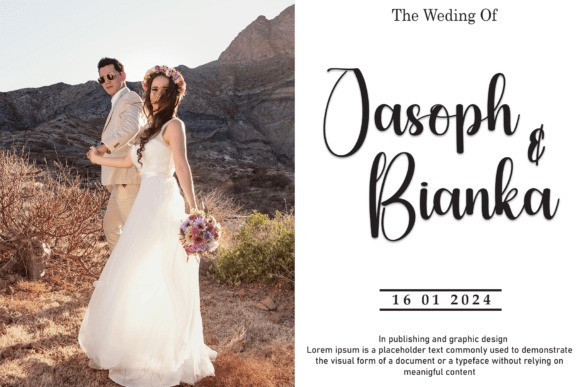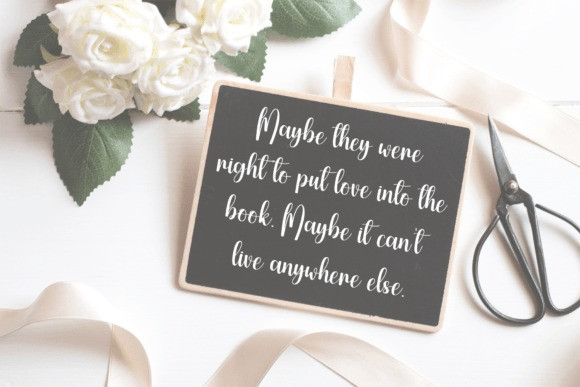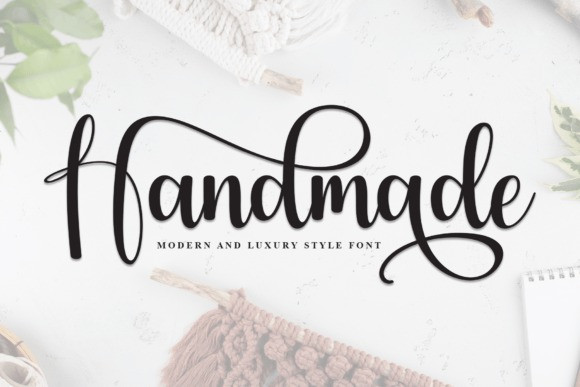
Handmade Handwritten Type
Handmade Handwritten Type is a fresh, stylish handwritten script font designed to infuse your projects with a contemporary vibe. With its fluid strokes and modern appeal, this font effortlessly captures a sense of chic sophistication. Elevate your designs and convey a trendy, yet approachable, aesthetic with Handmade.